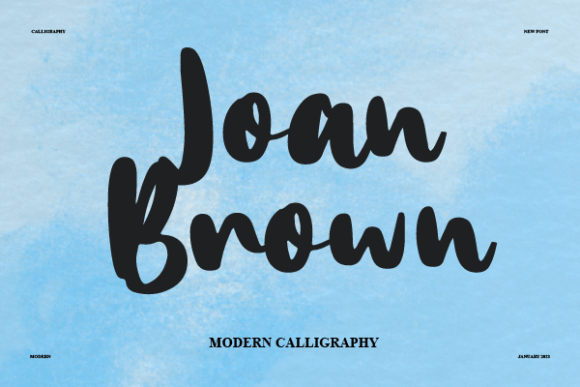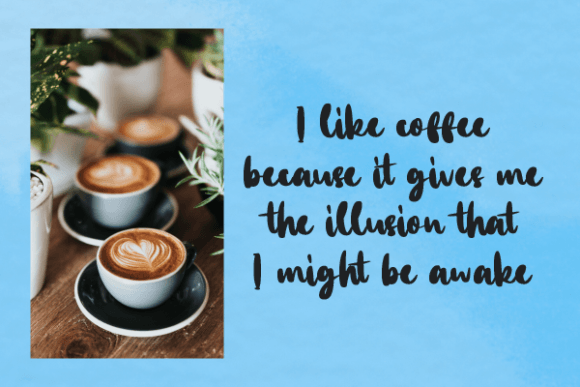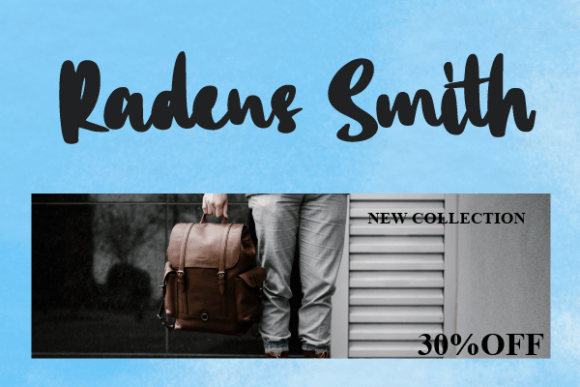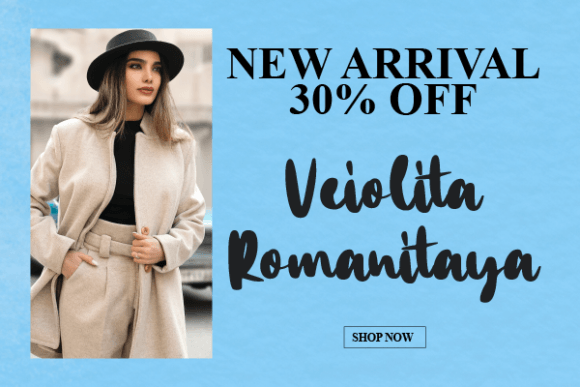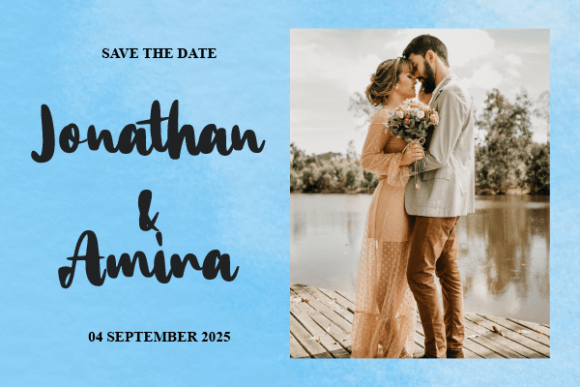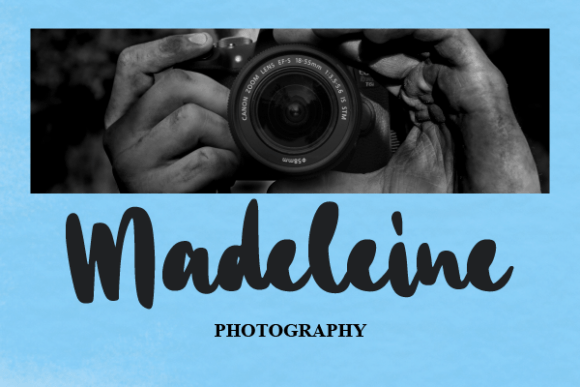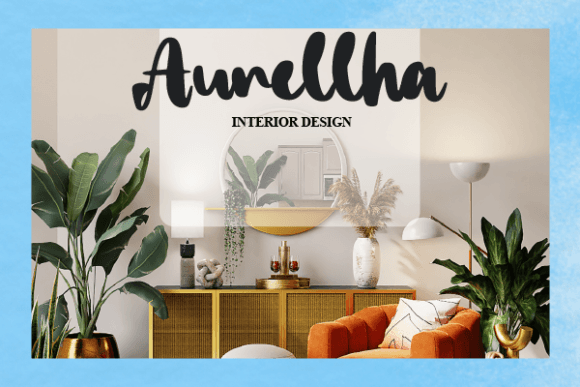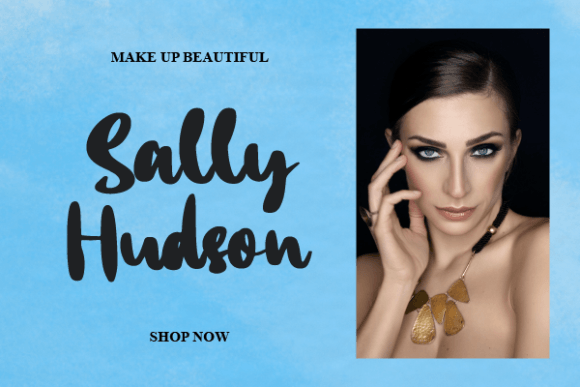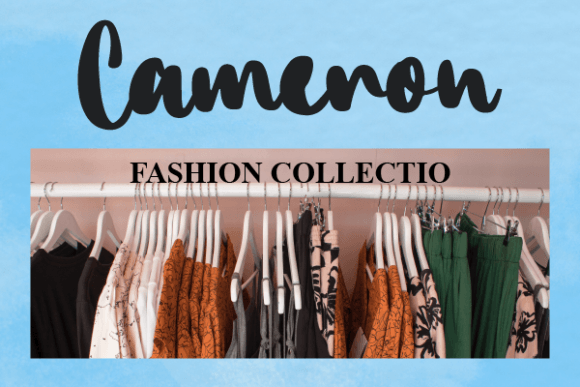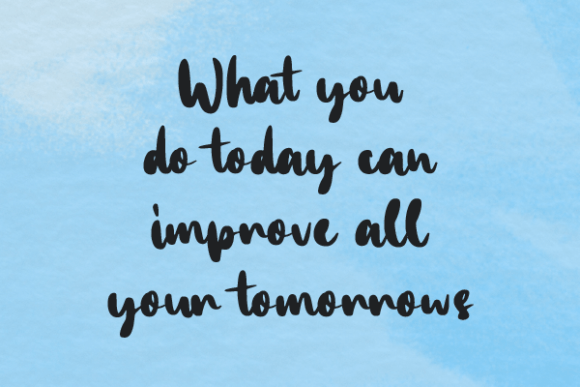
About Joan Brown
Joan Brown is a modern, bold script font. Fall in love with its incredibly versatile style and use it to create gorgeous wedding invitations, beautiful stationary art, eye-catching social media posts, and much more!